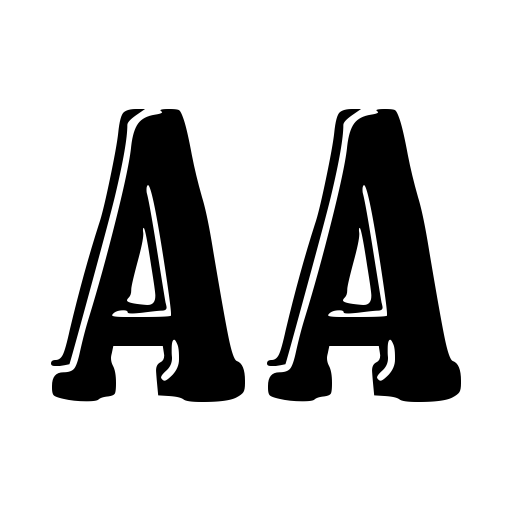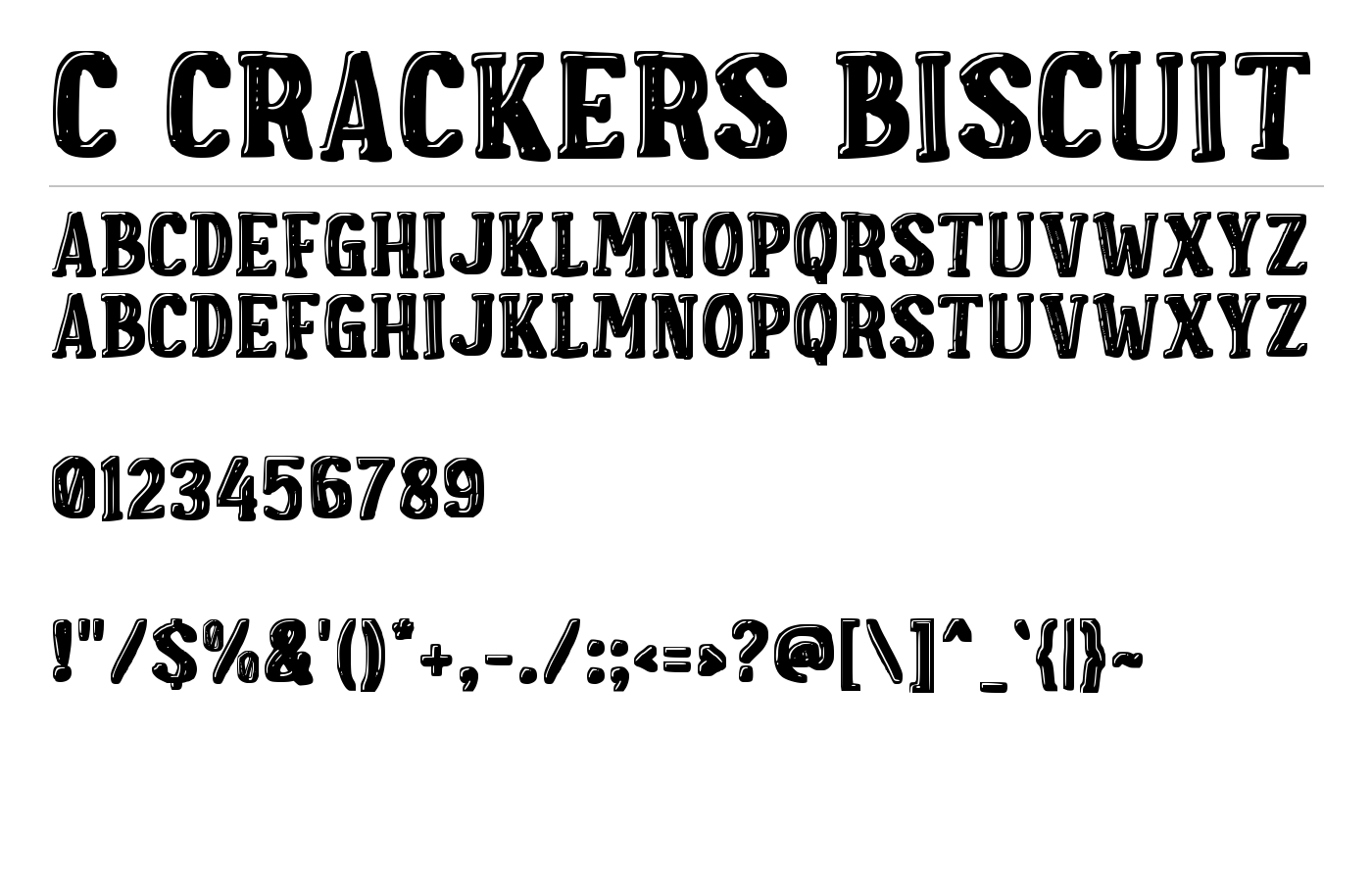
Crackers Biscuit is a bold, decorative serif font that carries a playful vintage vibe with its slightly condensed letterforms and textured strokes. Its strong presence, quirky details, and uneven edges make it perfect for eye-catching headlines, packaging, or branding that aims for a rustic or handcrafted feel. This font works especially well for designs that want to blend fun with nostalgia, such as food labels, posters, or casual event promotions.
c Crackers Biscuit Font
About c Crackers Biscuit Font